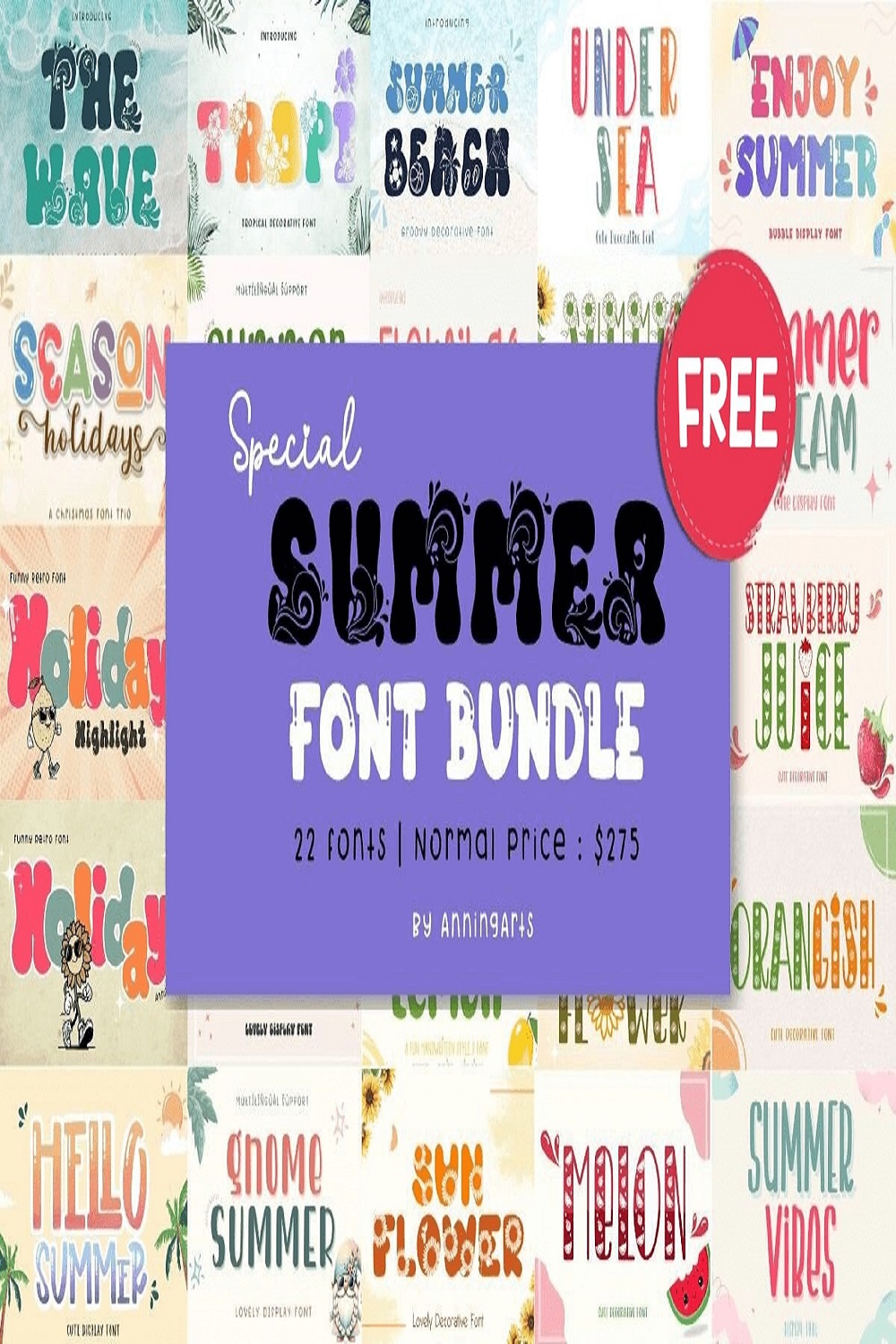
Grab this FREE Special Summer Font Bundle worth $275!This collection features 22 fun, retro, tropical, and decorative fonts—perfect for summer-themed projects like beach party invites, vacation tees, kids’ crafts, stickers, branding, and more. Commercial license included!